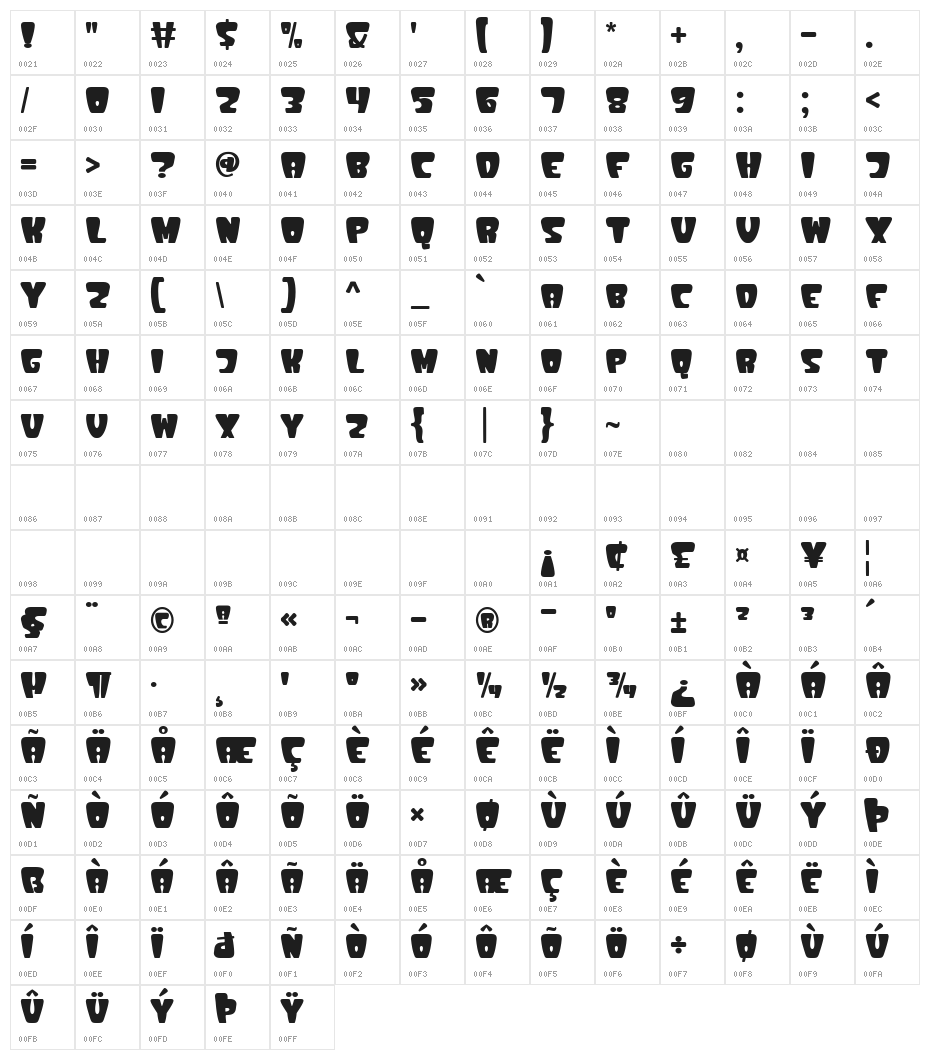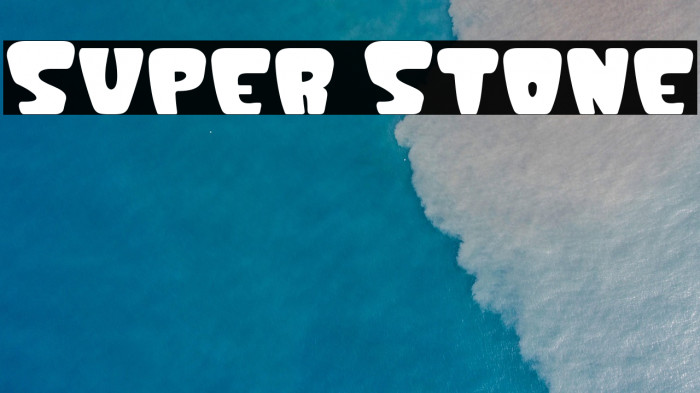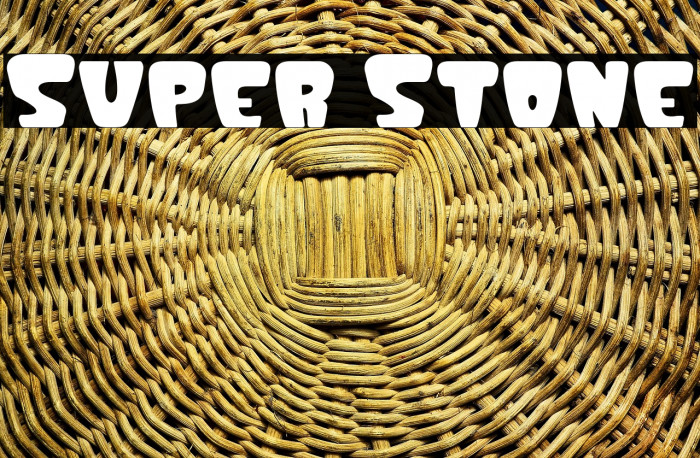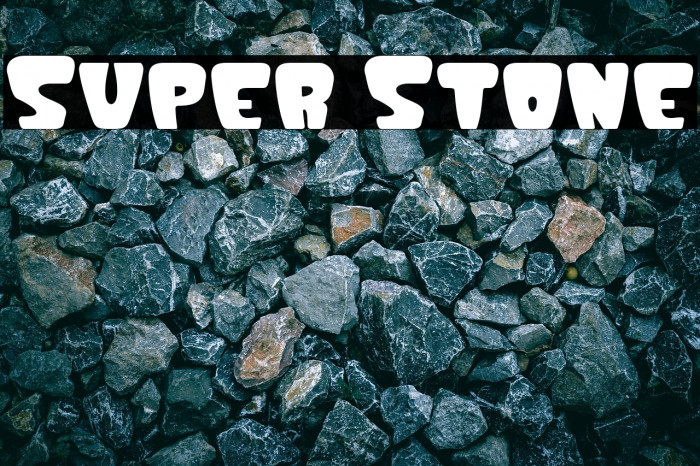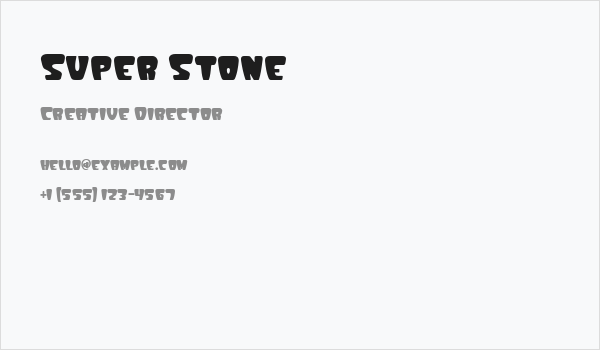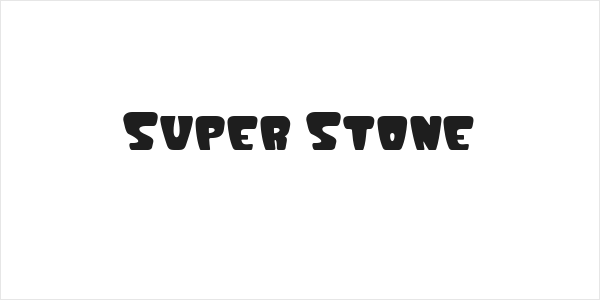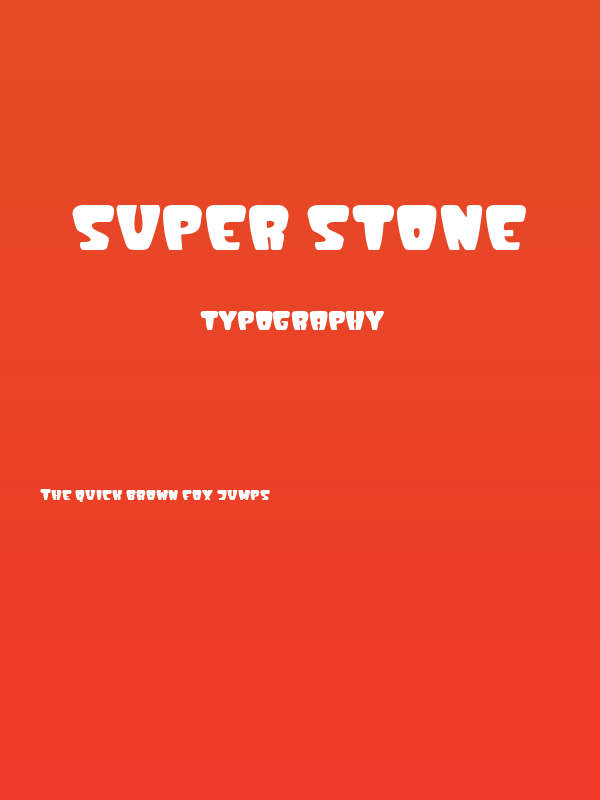
Super Stone Font
Super Stone Description
This font features a bold and chunky design with a playful and slightly irregular form. The characters have a strong presence with rounded edges and a solid, heavy weight that gives them a substantial appearance. The style is reminiscent of stone carvings, with a modern twist that adds a unique and eye-catching element. The uppercase and lowercase letters maintain a consistent thickness, contributing to the font's cohesive look. The numbers and special characters follow the same design principles, ensuring uniformity across all elements. This font is perfect for projects that require a bold statement and a touch of whimsy.
| Proposed Projects | Ideal for posters, logos, children's books, and playful branding. |